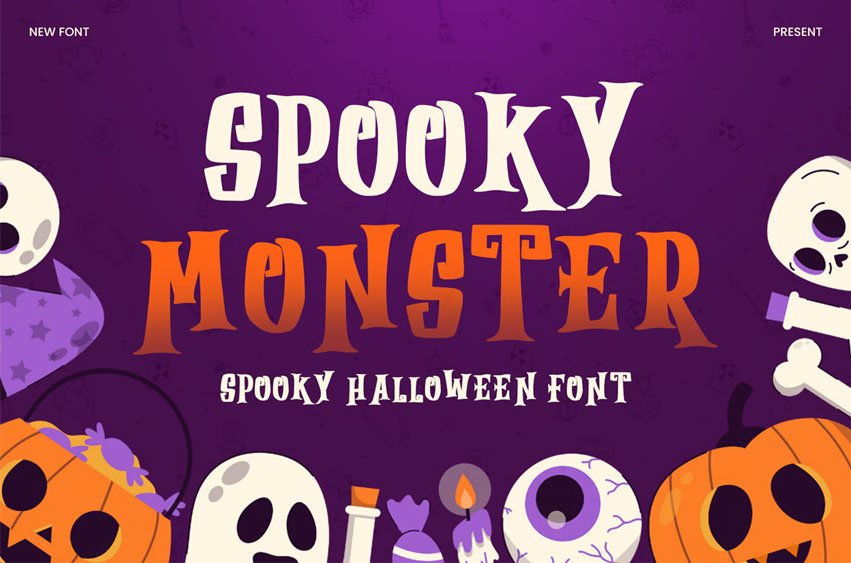
Spooky Monster Font is a fun yet terrifying horror display font inspired by creepy creatures, playful monsters, and the spooky atmosphere of Halloween night. Its bold shapes and quirky horror details create a perfect balance between scary and fun, making it ideal for Halloween-themed designs.
Designed as a strong display font, Spooky Monster works perfectly for Halloween posters, banners, party flyers, event signage, and monster-themed decorations. The expressive letterforms instantly grab attention and bring a lively spooky character to any design.
This font is also versatile for seasonal and creative projects such as Halloween invitations, Thanksgiving designs with an autumn twist, fall crafts, and creative lettering artworks. It adds a playful horror mood that works well for both kids and adult Halloween themes.
Spooky Monster is suitable for SVG projects and cutting machines, making it perfect for Cricut, DIY crafts, stickers, mugs, posters, and creative merchandise. Its clear display style ensures great readability while keeping its spooky monster personality.
Spooky Monster Font Preview